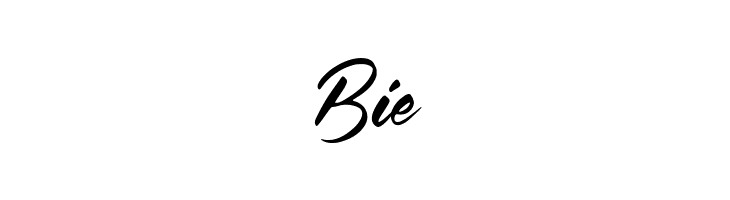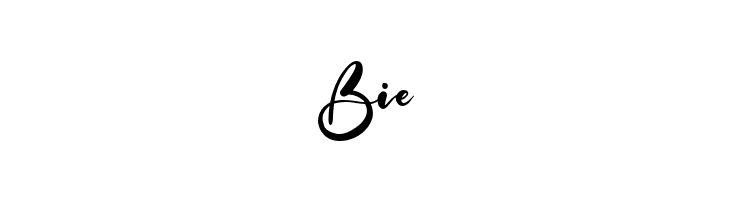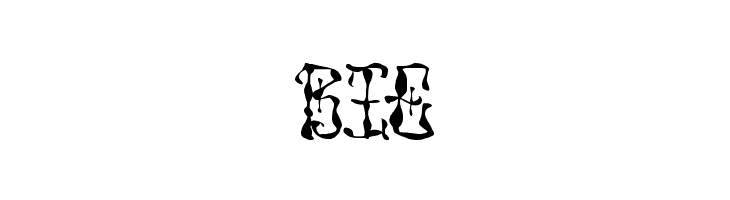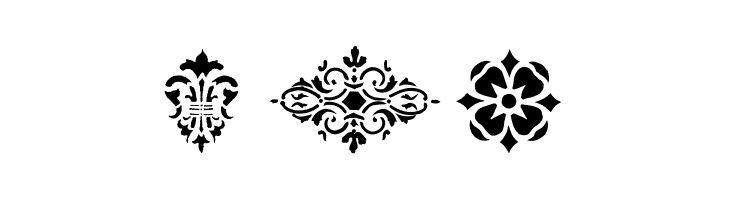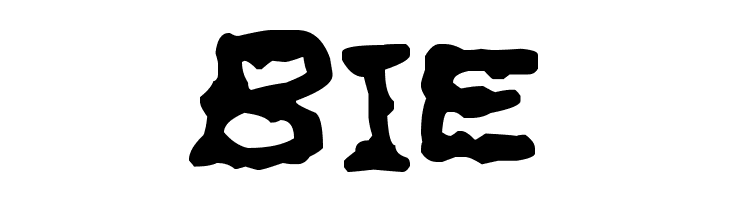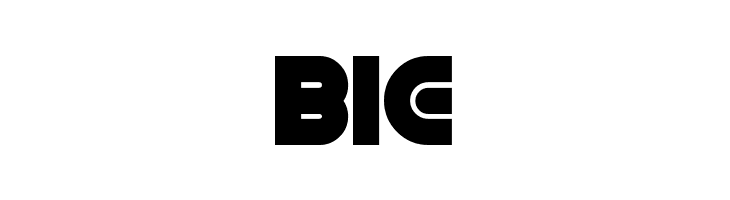
A bold, rugged font with an organic, ink-blot appearance.
A bold, distressed font with a vintage, industrial style.
A bold, decorative font with vintage charm and high contrast strokes.
An ornate, gothic-style font with intricate details and a spooky vibe.
Ornamental dingbat set with vintage floral and geometric motifs.
A dynamic, cursive font with a handwritten, calligraphic style.
A charming and elegant script font with flowing, cursive letters and decorative flourishes.
A bold, decorative font with intricate, swirling embellishments and a gothic influence.
A bold, italic script font with a handwritten, flowing style.